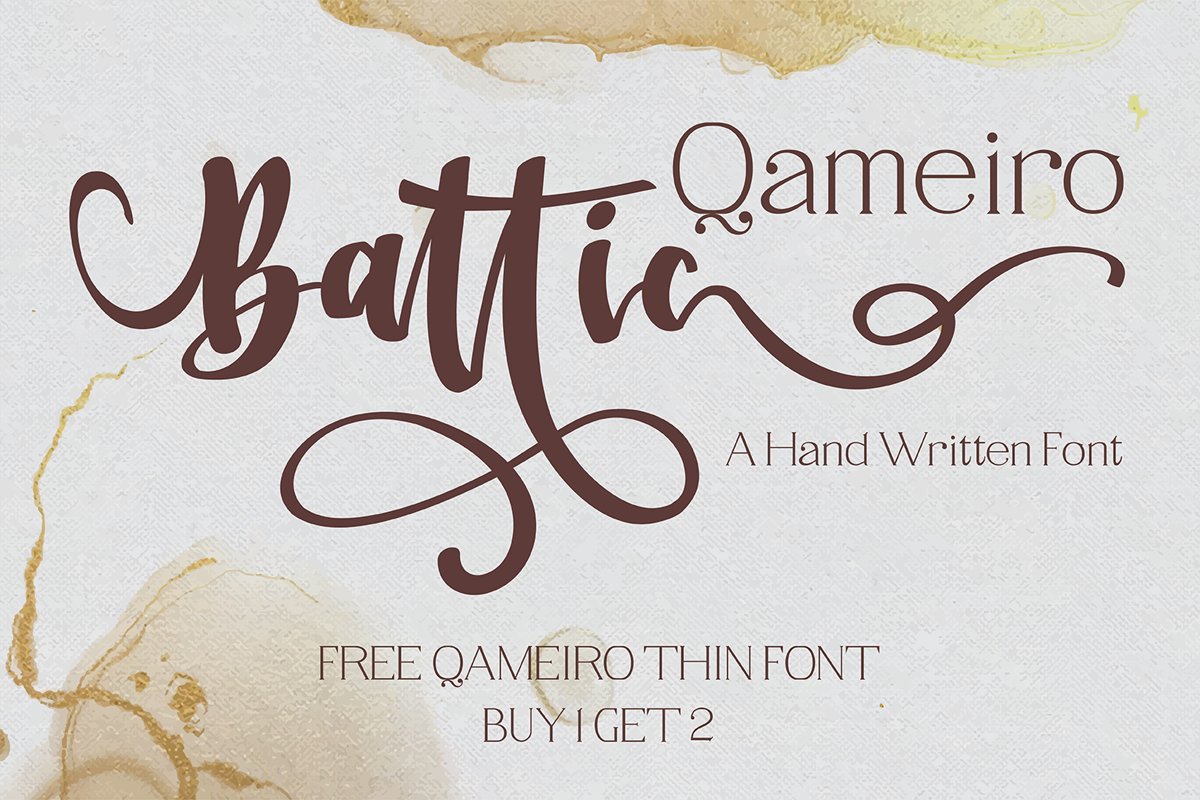
Battic Hand Written Font
Battic
Battic is a magical script font carefully created with a touch of elegance. This is a beautiful combination of timeless elegance and authentic calligraphy. It features an incredibly classic style, while still keeping a friendly feel. Battic is the perfect font for making original and outstanding designs.
Battic includes:
- Standard uppercase and lowercase alphabets
- Full stylistic alternate uppercase and lowercase alphabets (both coded into the regular file, and separated out into an alternate file)
- Standard numbers 0-9 and punctuation
- Over 200 accented characters for foreign language support
- 15 double-letter ligatures